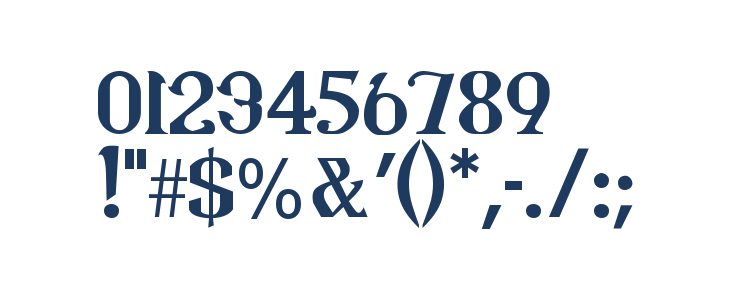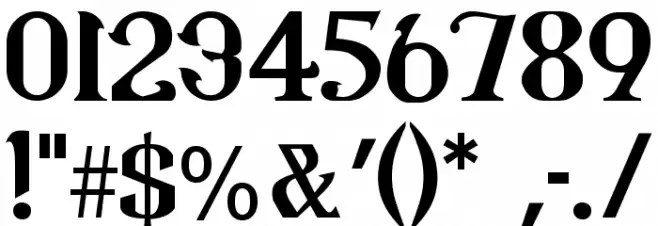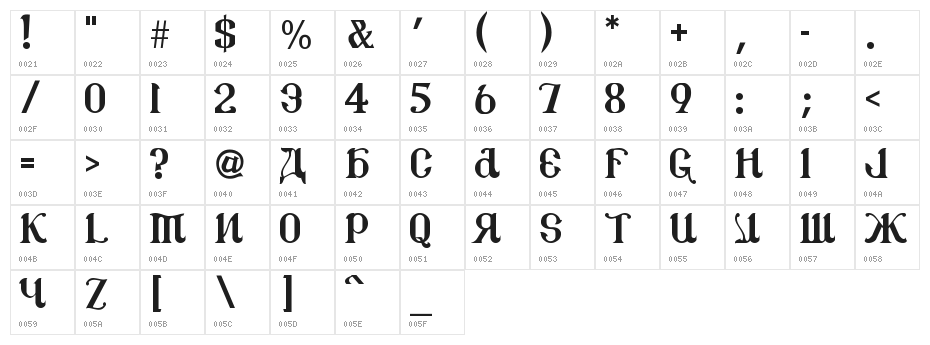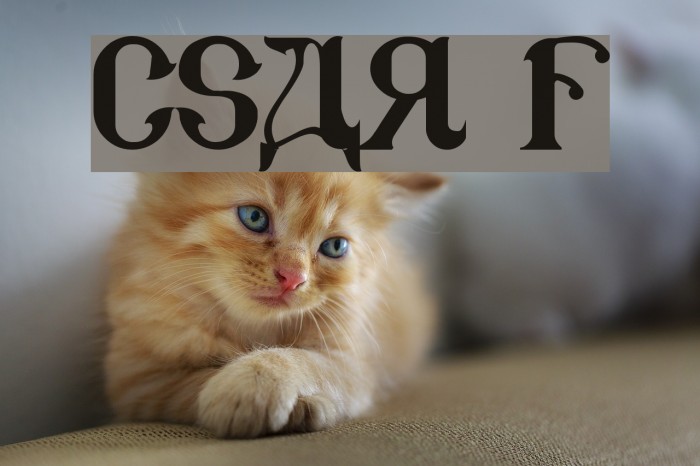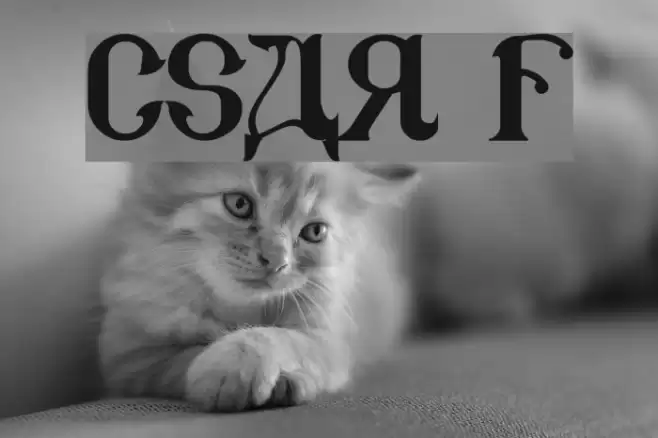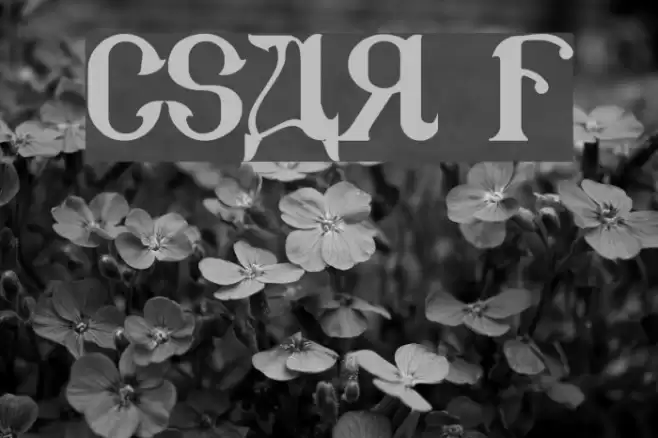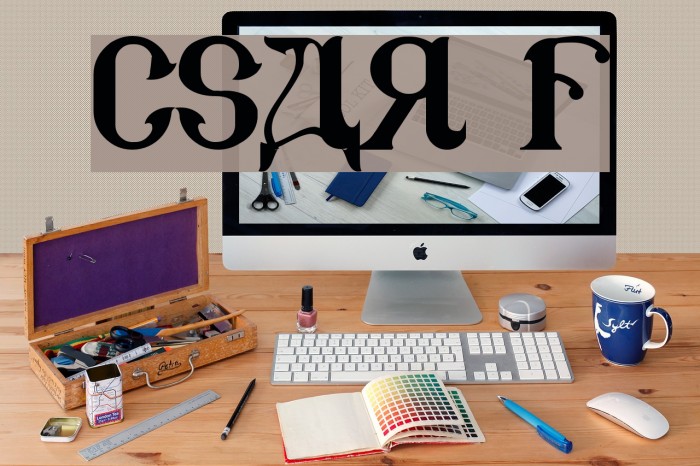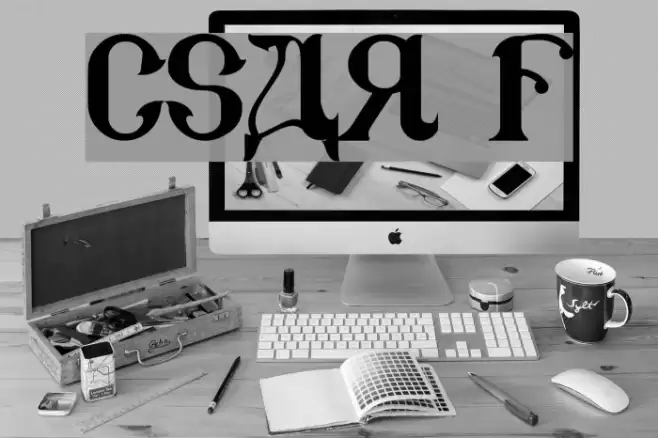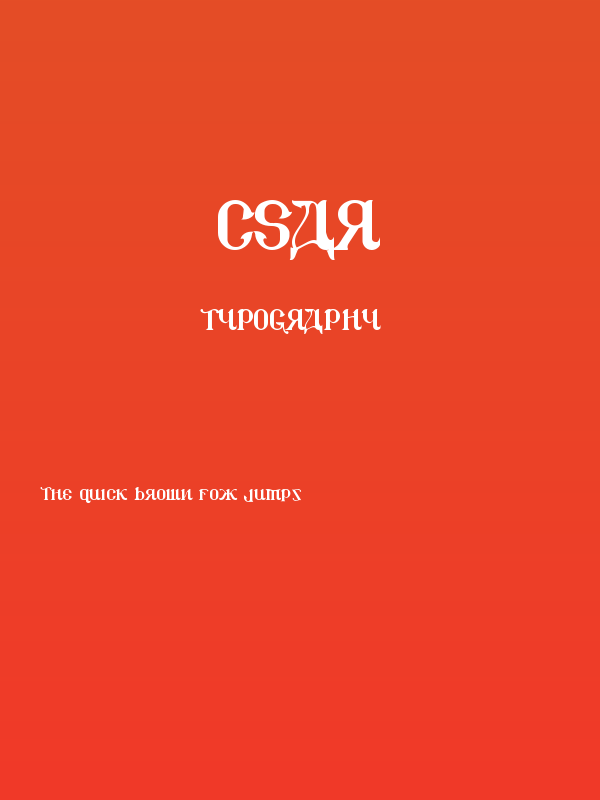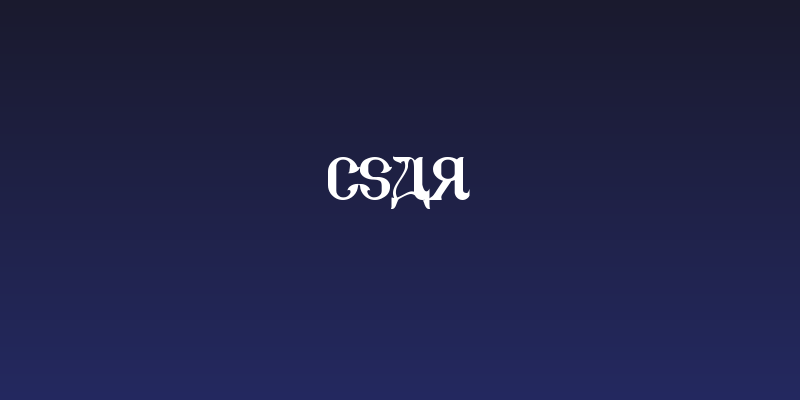
CSAR Font
CSAR Description
This font features a bold and dramatic style with a strong blackletter influence. The characters are ornate, with intricate curves and sharp edges that evoke a sense of historical elegance. The uppercase letters are particularly striking, with elaborate serifs and decorative elements that enhance their visual impact. The lowercase letters maintain a consistent style, offering a cohesive look across the typeface. Numbers and special characters are designed to match the overall aesthetic, ensuring versatility in various design contexts. This font is ideal for projects that require a touch of sophistication and a nod to traditional typography.